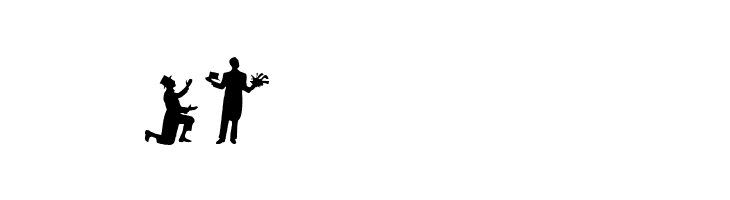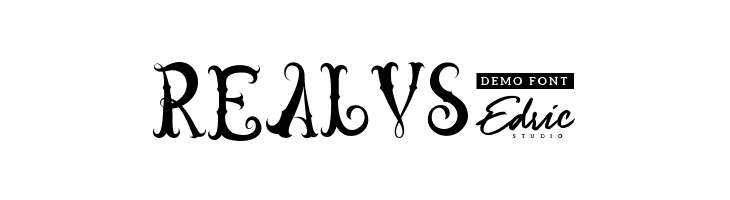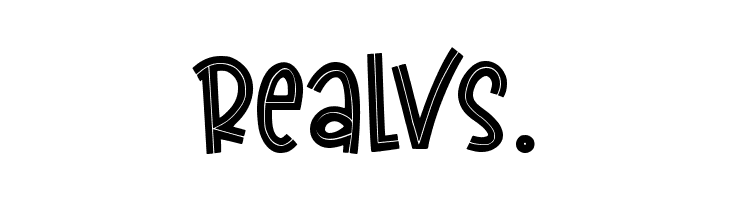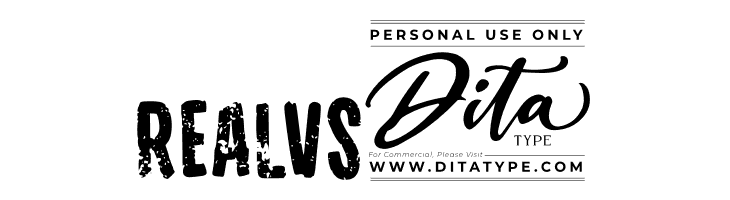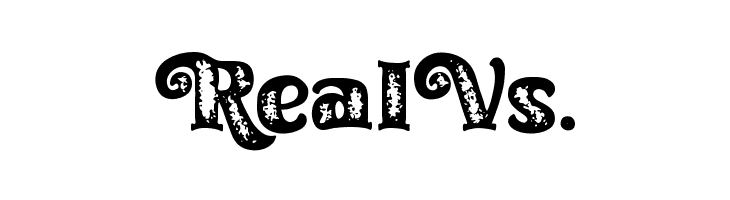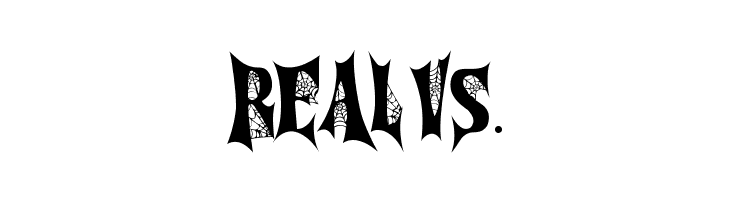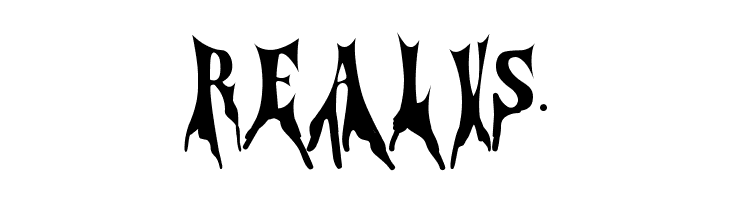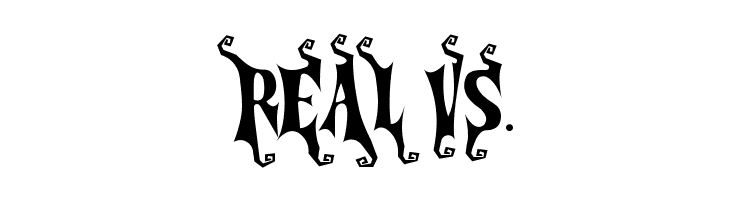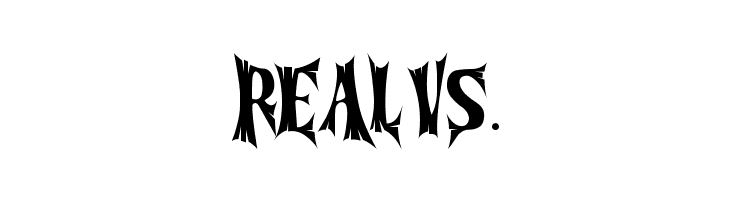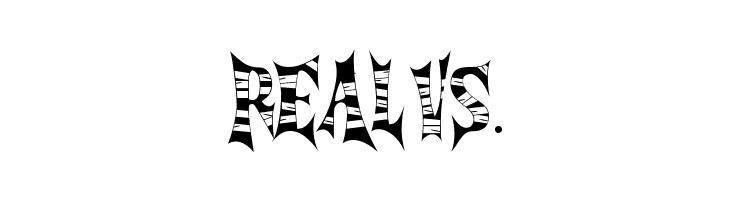
A bold, playful handwritten font with rounded, thick strokes.
A bold, playful font with rounded, whimsical characters.
A playful, bold outline font with rounded edges and a hollow interior.
A bold, decorative font with modern curves and playful angles.
A modern, elegant font with high contrast and italic slant.
A whimsical and playful font with curly embellishments and decorative flair.
A whimsical, curly font with playful embellishments and a decorative style.
A playful, hand-drawn font with bold, exaggerated strokes and a whimsical style.
A bold, textured font with a distressed, vintage look and playful, curly style.
A playful and elegant handwritten font with flowing, cursive letterforms.
A whimsical and decorative font with curly, playful elements.
A whimsical and playful font with curly, looping strokes and bold, rounded characters.
A lively, expressive handwritten font with dynamic strokes and playful loops.
A bold, spiky gothic display font with dramatic, pointed forms.
A bold, gothic display font with devilish horns and tails.
A bold, dripping decorative font with gothic and horror vibes.
A bold, bandaged decorative font with a spooky, Halloween vibe.
A bold, jagged, root-inspired decorative font with a gothic, eerie feel.
A bold, gothic display font with skull embellishments.
A bold, gothic display font with spiderweb embellishments and sharp, dramatic forms.
A quirky, gothic display font with twisted, whimsical serifs.
A bold, jagged, woodcut-style decorative display font with gothic influences.
A horror-themed display font with clawed, zombie-like accents.
A bold, distressed font with a rough, textured appearance for a vintage feel.
A modern sans-serif font with a geometric and balanced design.
Silhouette-based decorative font with theatrical character poses.
A bold, decorative font with contrasting strokes and playful curves.
A playful, bold font with sharp angles and decorative outlines.